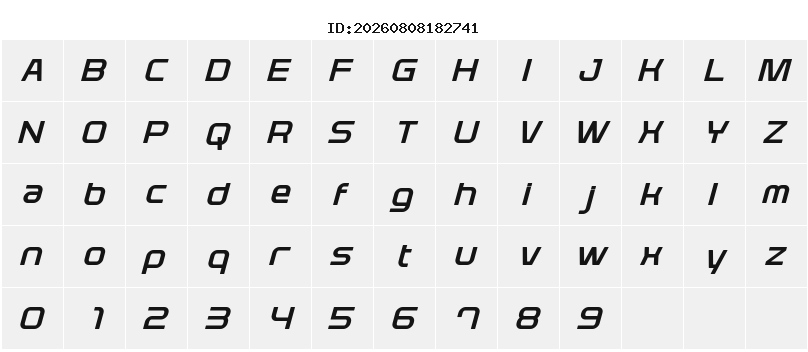
• Font Name: Plavsky
• Designer: Neale Davidson
• Manufacturer: Pixel Sagas
About Plavsky.ttf
Plavsky.ttf is a modern, elegant sans-serif font designed for ultimate readability and visual harmony. Perfect for branding, headlines, web design, and print materials.